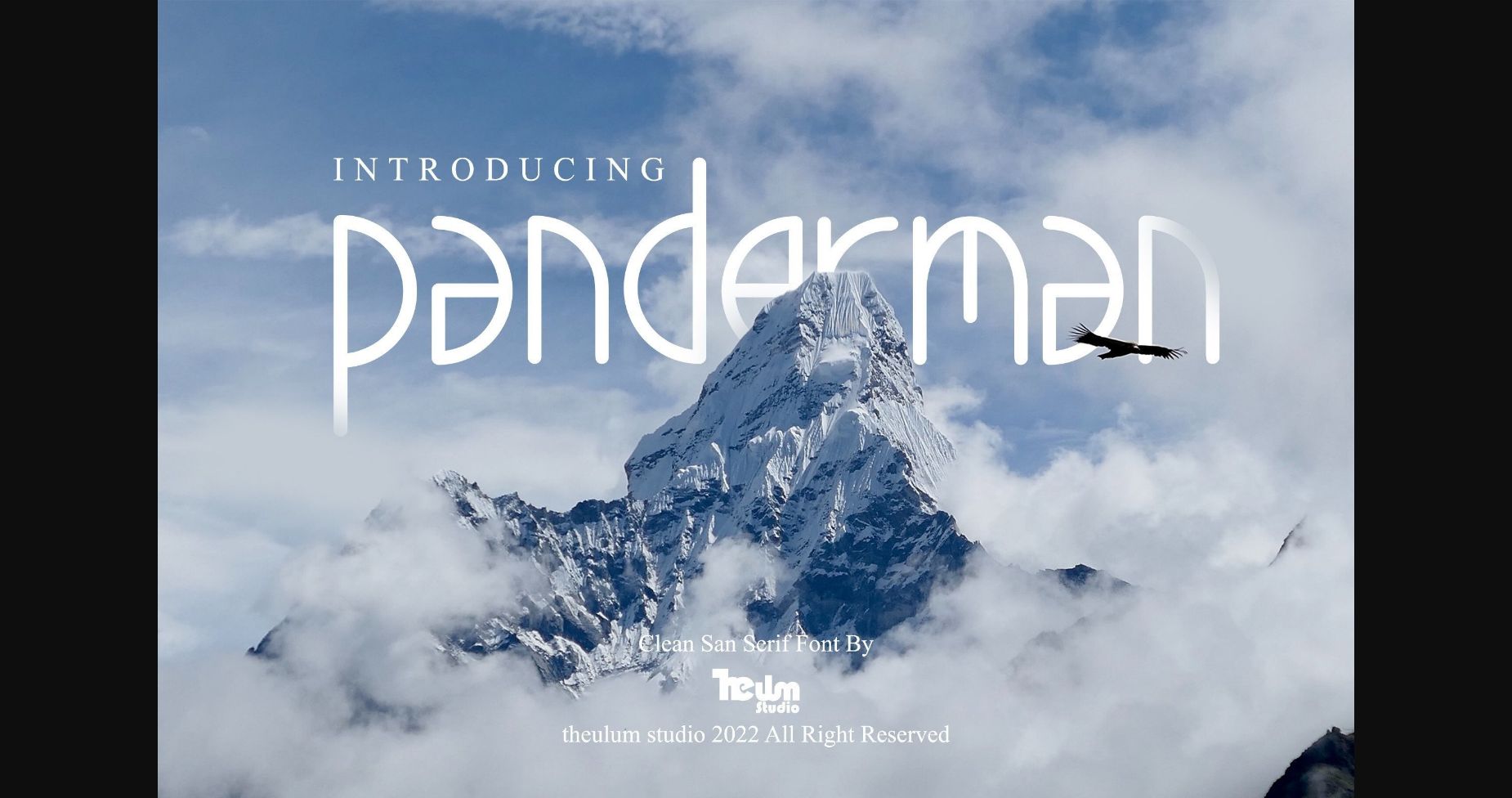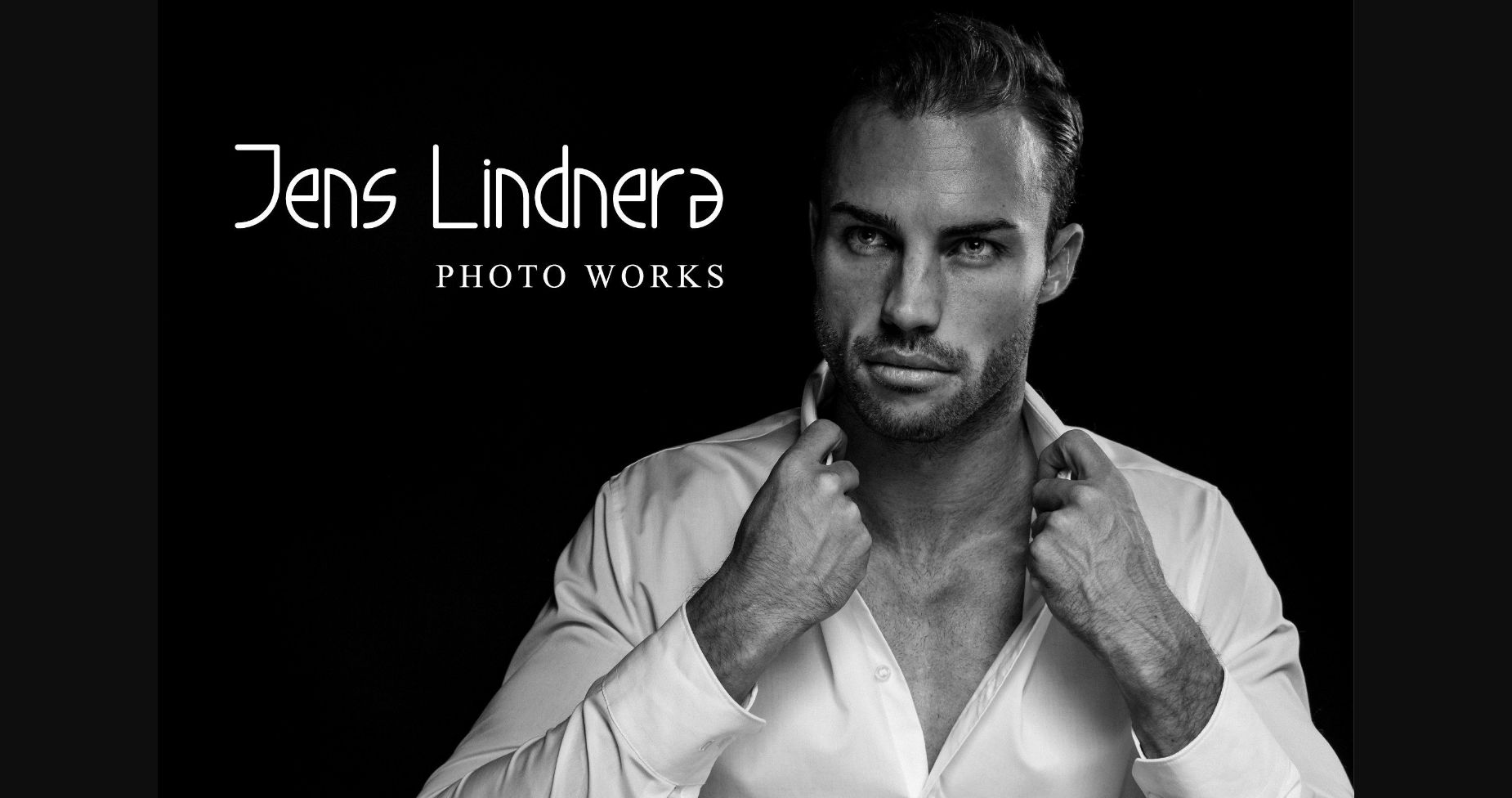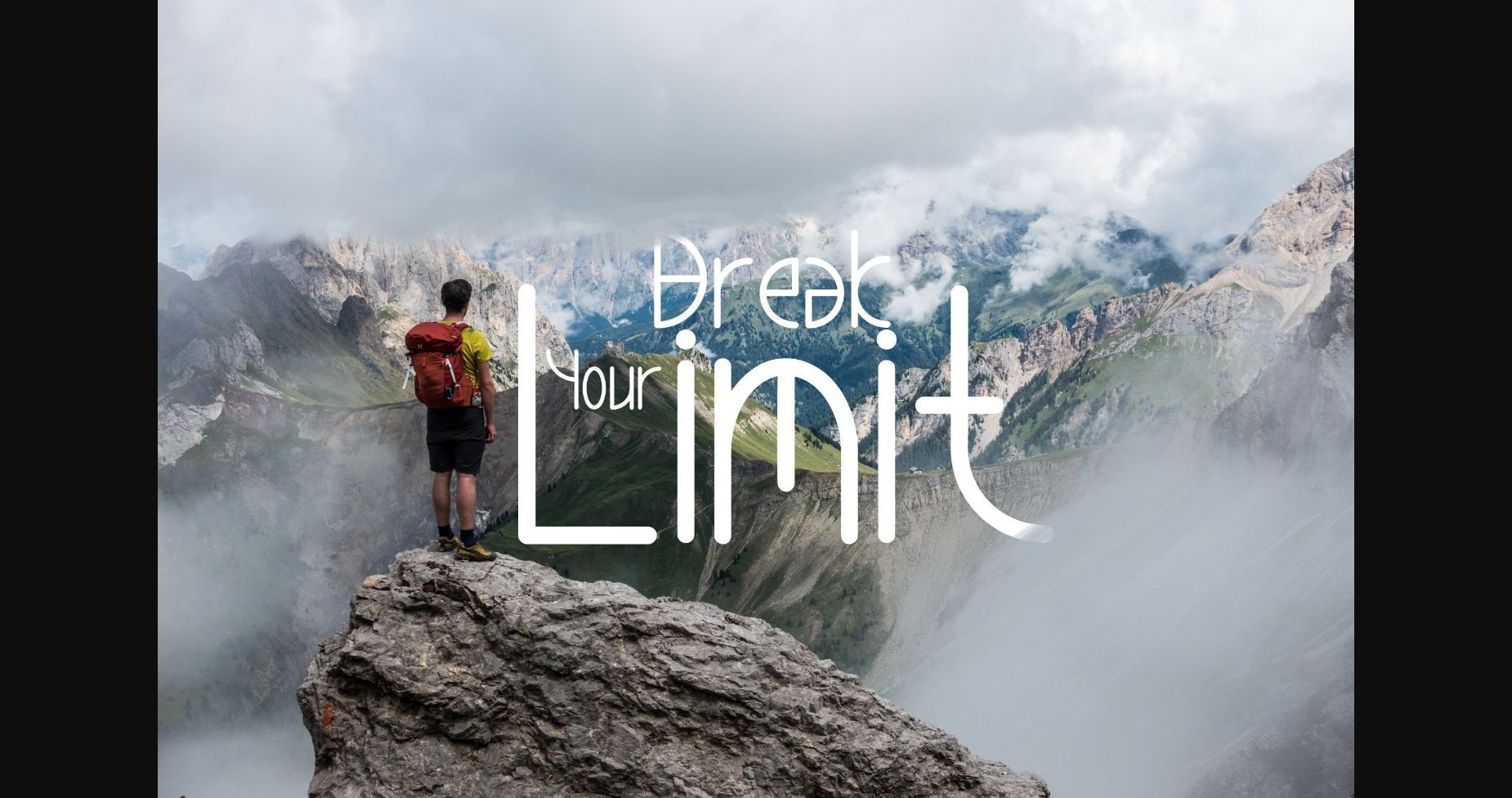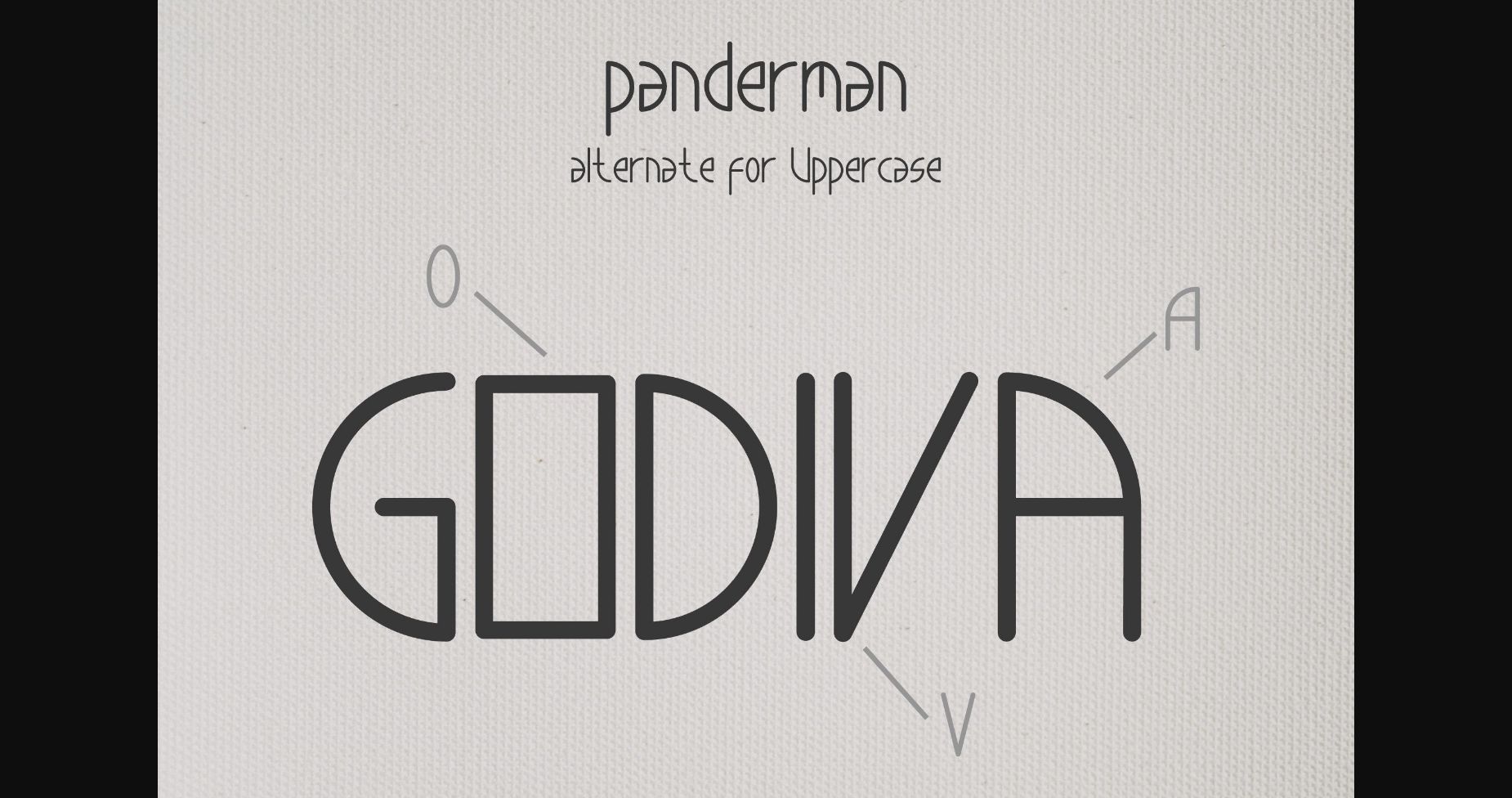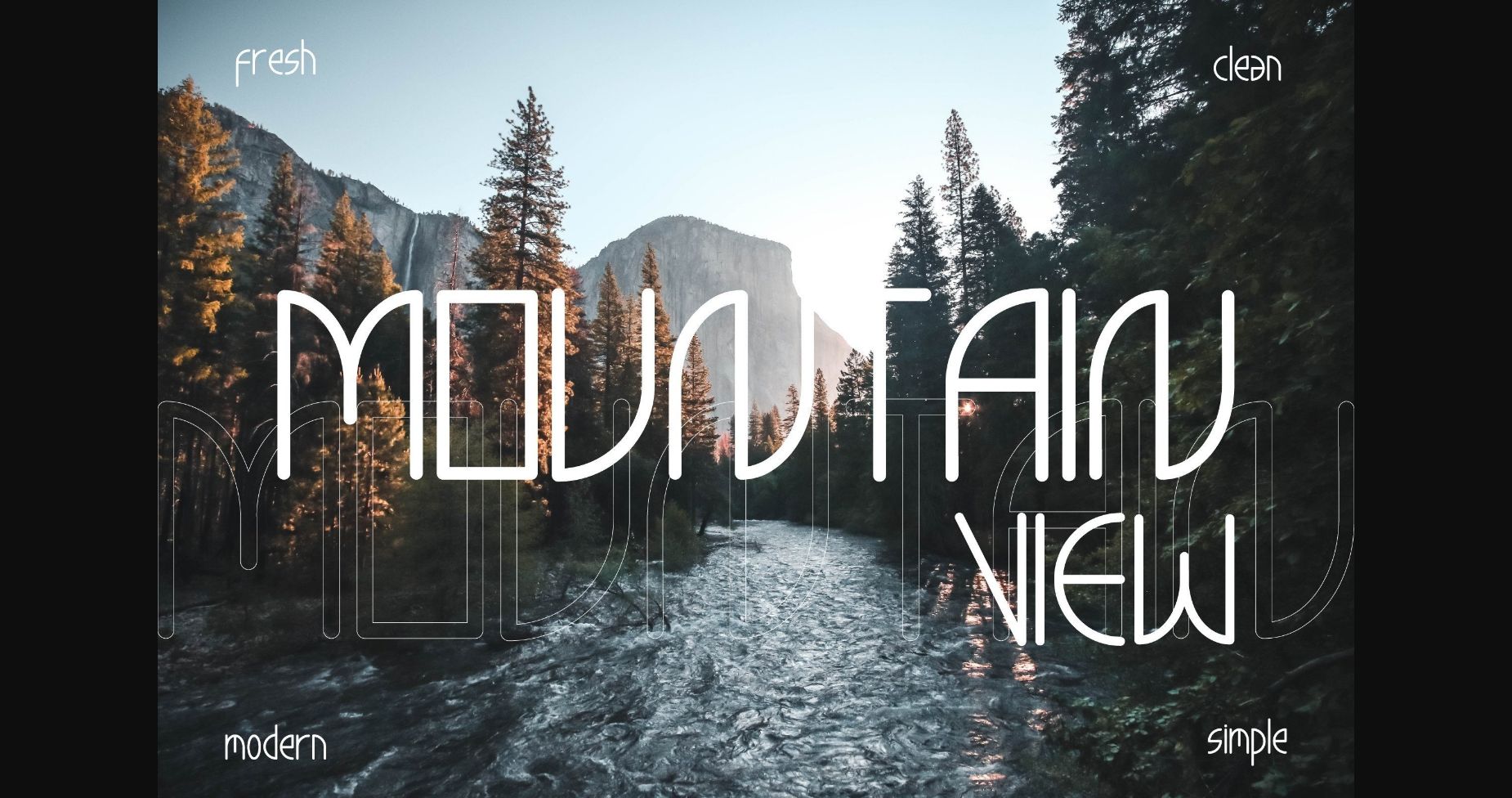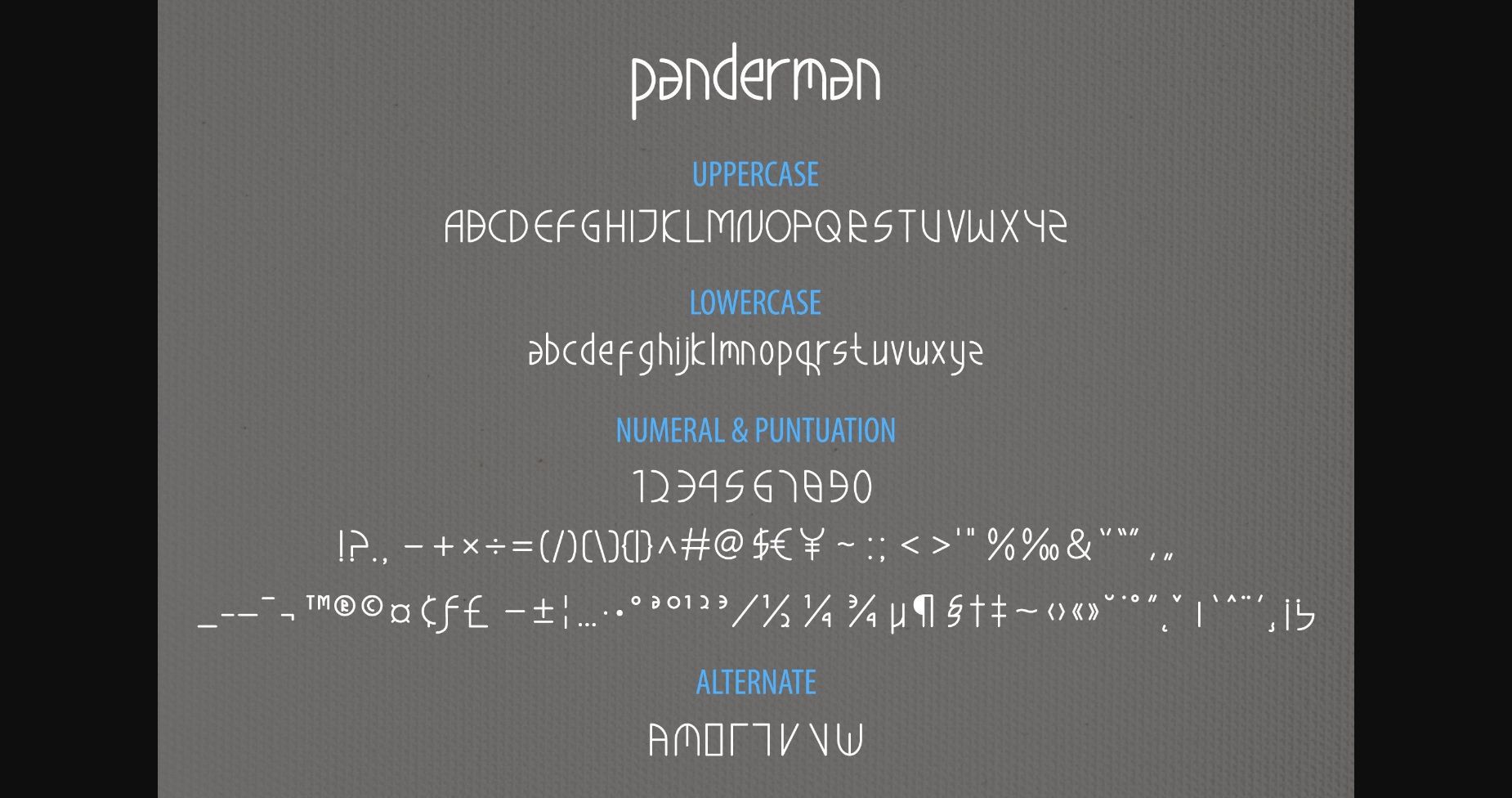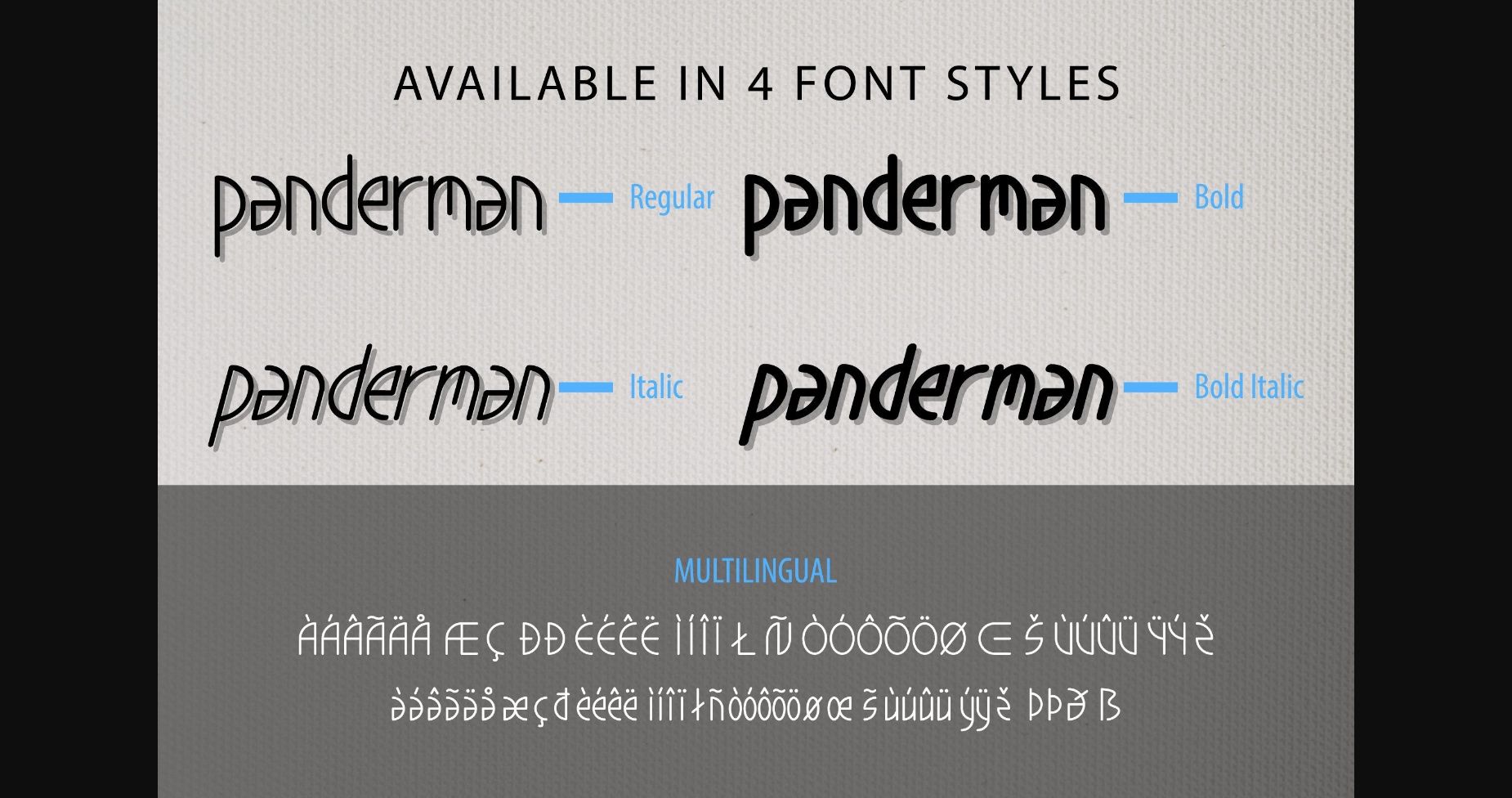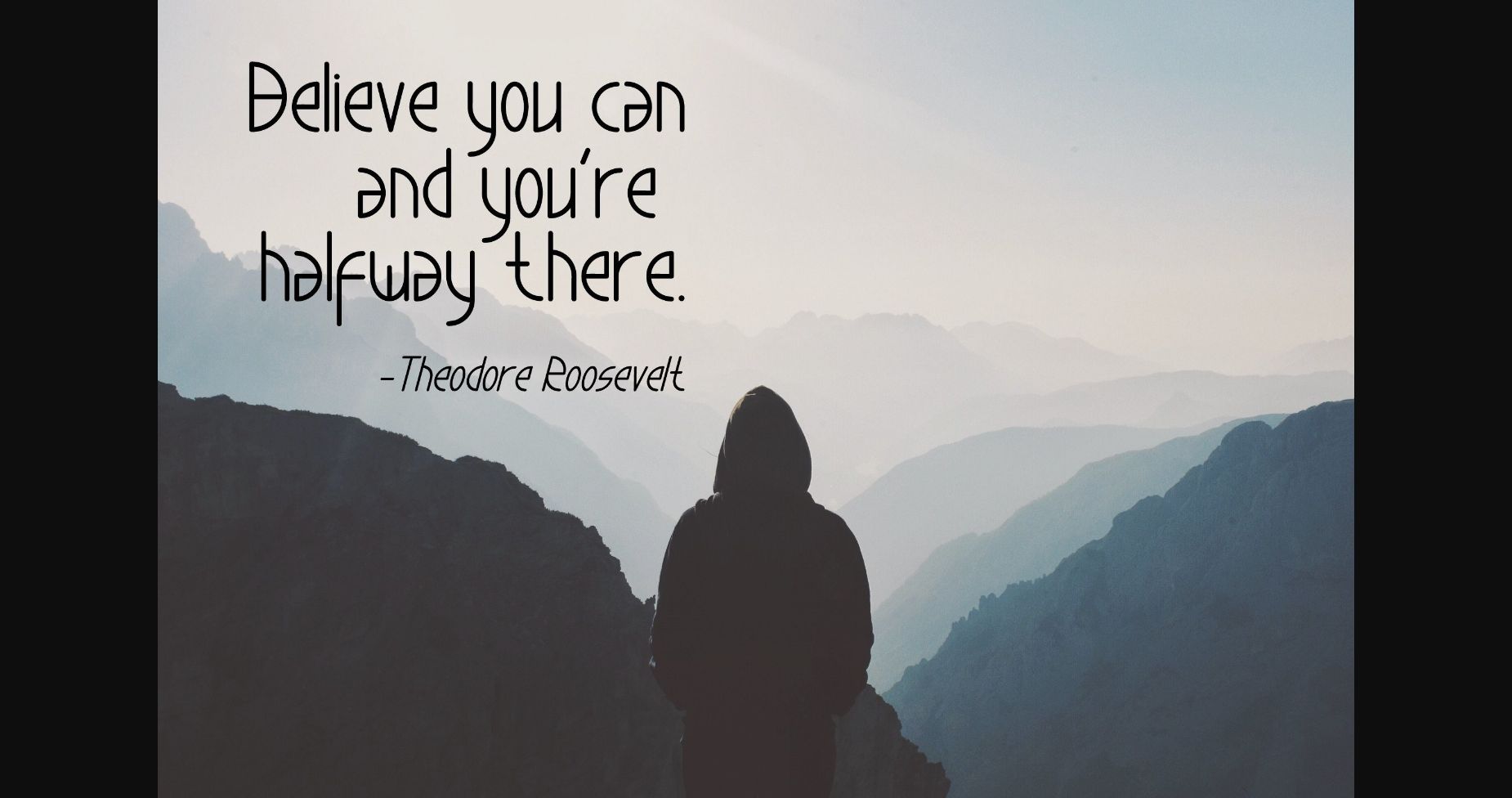
HomeSans Serif FontsPanderman Font Sans Serif Fonts Panderman Font FacebookXPinterestWhatsApp 1 of 10 ... Panderman Font Poster 2... Panderman Font Poster 3... Panderman Font Poster 4... Panderman Font Poster 5... Panderman Font Poster 6... Panderman Font Poster 7... Panderman Font Poster 8... Panderman Font Poster 9... Panderman Font Poster 10... About Panderman Font Panderman is a modern and interesting sans serif font. Its fresh, clean but distinct style makes it perfect for a wide range of projects that need a touch of authenticity. DOWNLOAD NOW People also explored Hugshine Growter Font Felton Dafana Font Aovelz Font The Shapes Font Sunny Love Font Gilose Font Flower Vibes Font Mosaic Font Qaylla Font 394 0 TagsPanderman Font Previous articleSupertalls FontNext articleBeiamox Font LEAVE A REPLY Cancel reply Comment: Please enter your comment! Name:* Please enter your name here Email:* You have entered an incorrect email address! Please enter your email address here Website: Save my name, email, and website in this browser for the next time I comment. Personal Use Free Bukan Personal Use Free Read more about this font Lightning Script Personal Use Free Read more about this font Child Writing Free Personal Use Free Read more about this font Sweet Cake Personal Use Free Read more about this font BLOG Free Fonts Risk: Why Free Fonts Can Be Dangerous for Designers Free Fonts Risk: Why Free Fonts Can Be Dangerous for Designers Using free fonts is a common practice in web and graphic design. However, the... 5 Fonts That Will Dominate Design Trends in 2026 Exploring Font Trends Where to Buy American Fonts Online in 2024